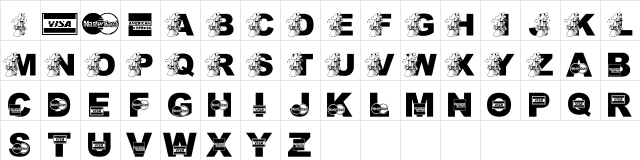
LMS Post-Thanksgiving Shopping Regular
Design Context for LMS Post-Thanksgiving Shopping Typeface
LMS Post-Thanksgiving Shopping is a composed and adaptable typeface that performs quietly and consistently across a wide range of design contexts.